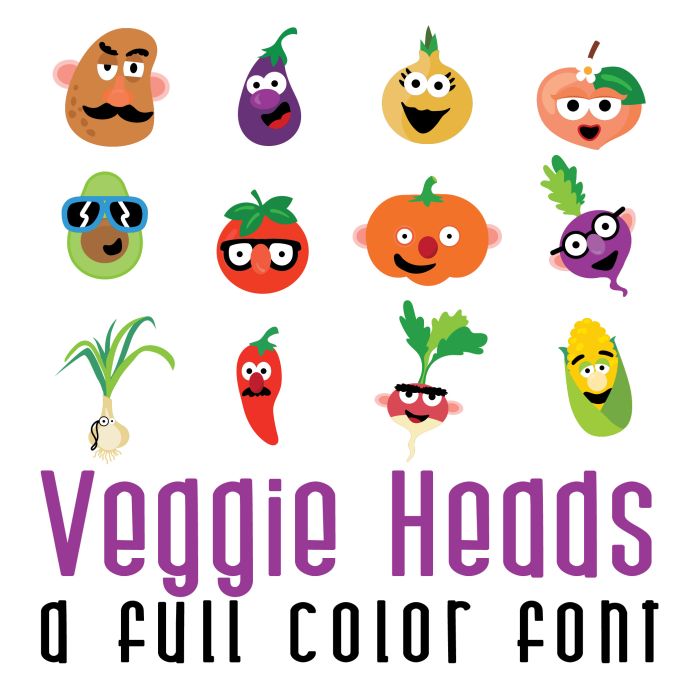
This fun full color font features 26 funny veggies in disguise perfect for cards, crafts, gifts, classrooms, planner stickers, scrapbook pages, decor and more!